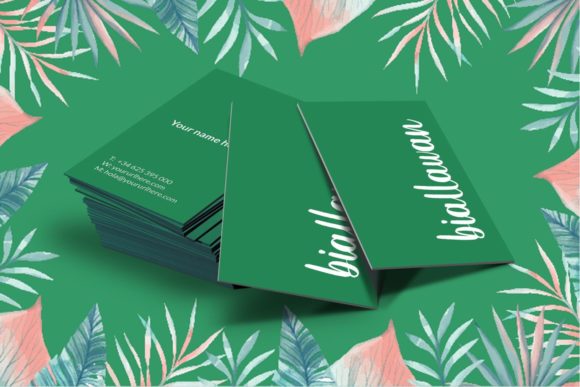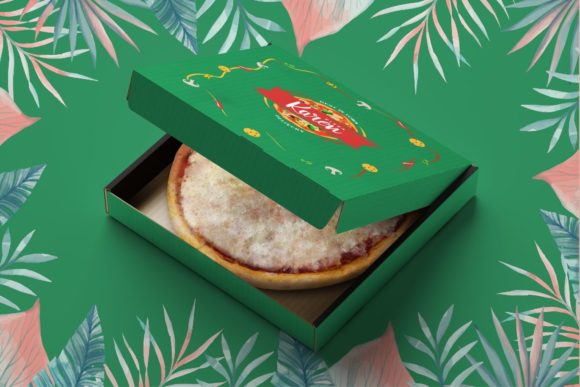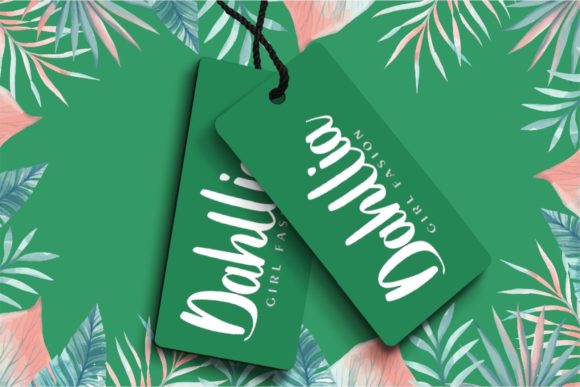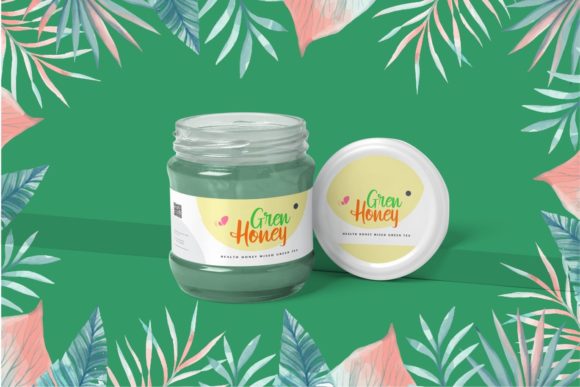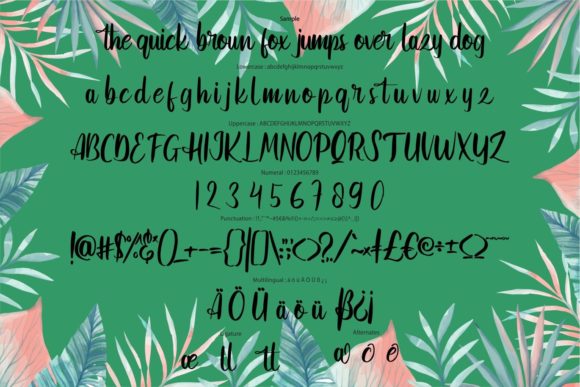
Unleash Your Creativity with the Asikira Font
There’s nothing quite like the rush of adrenaline you feel when a design idea finally comes together. The colors, the layout, the typography – everything falls into place, and you know you’ve created something special. For designers, this moment is a dream come true, and it’s often the result of choosing the perfect font. That’s where the Asikira Font comes in – a bold and beautiful handwritten font that’s sure to elevate any design project.
With its incredibly authentic feel, the Asikira Font is the perfect addition to any designer’s toolkit. Whether you’re working on a branding project, a website, or a social media campaign, this unique font will effortlessly turn your design into a standout. Its value lies in its versatility and ability to add a personal touch to any project, making it a must-have for designers who want to create truly memorable designs.
Asikira Font Key Features
- Font Family: Asikira comes in two font families, Regular and Bold.
- Character Set: Supports a wide range of characters, including Latin, Cyrillic, and Greek alphabets.
- Unique Characteristics: Asikira features a unique blend of modern and traditional elements, making it a versatile choice for various design projects.
Designer Review: Asikira Font
I recently had the chance to work with the Asikira Font, and I must say it’s an interesting choice. Here’s my honest review.
- ✨ Unique design aesthetic: The Asikira Font has a distinct, hand-drawn feel that can add a touch of personality to your designs.
- ✨ Good legibility: Despite its quirky design, the font is surprisingly easy to read, even at smaller sizes.
- ✨ Large character set: The font includes a wide range of characters, including special symbols and punctuation marks.
- ⚠️ Limited font sizes: The font doesn’t scale well to very large or very small sizes, which can lead to pixelation or loss of detail.
- ⚠️ Not ideal for body text: The font’s unique design can be overwhelming if used for large blocks of text. It’s better suited for headings, titles, or other emphasis.
- ⚠️ Not suitable for small screens: The font’s pixelation issues can be particularly noticeable on smaller screens, such as mobile devices.
Overall impression:
The Asikira Font is a bold, eye-catching choice that can add a touch of personality to your designs. However, it’s not without its limitations. If you’re looking for a unique font for headings or titles, Asikira might be a good fit. But for body text or small screens, you might want to consider a more versatile option.
Asikira Font Practical Application Guide
Getting the Most Out of Asikira Font
Asikira Font is best used for creating unique, creative designs that require a distinctive touch. To get the most out of it, experiment with different font sizes, colors, and styles to achieve the desired effect.
Common use cases for Asikira Font include:
1. Branding and logo design
2. Creative marketing materials
3. Artistic and design-focused projects